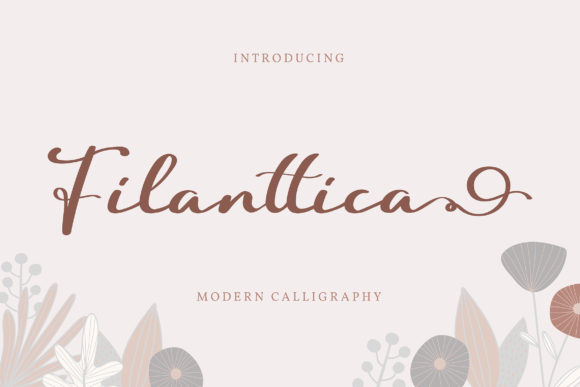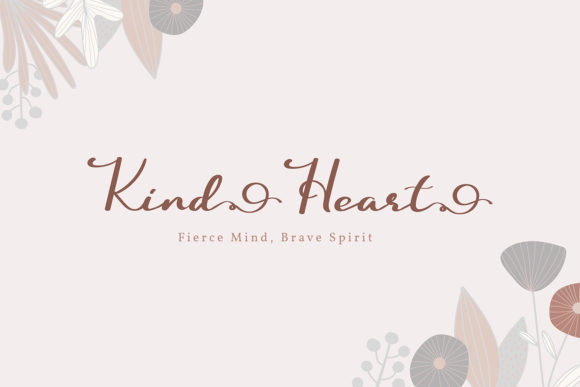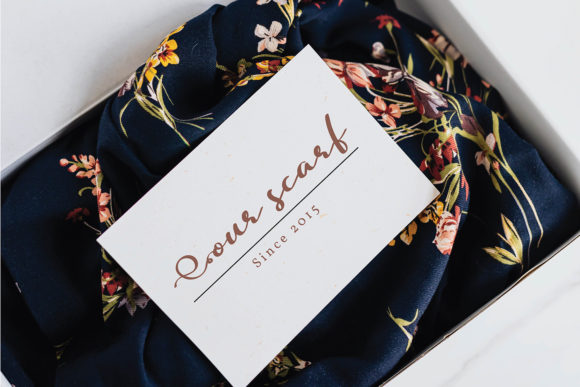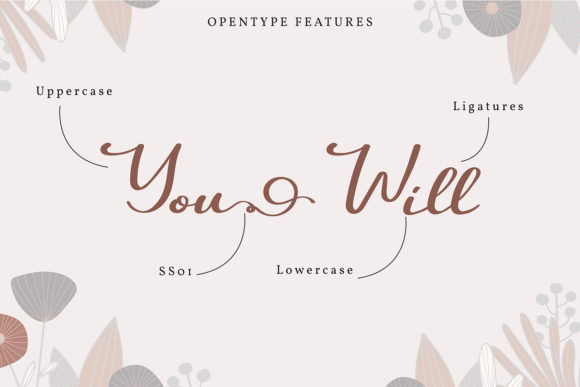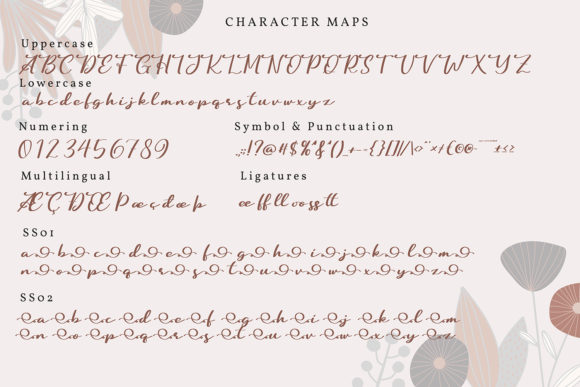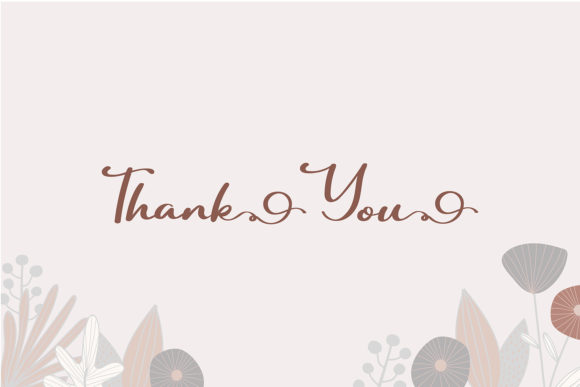
Filanttica Font
About Filanttica Font
Filanttica is a captivating cursive font that embodies elegance and sophistication. With its flowing and graceful letterforms, this font adds a touch of charm to any design project, making it particularly well-suited for wedding invitations, thank you cards, quotes, greeting cards, logos, business cards, and other designs that require a personalized touch.
The beauty of Filanttica lies in its delicate and well-crafted letterforms. Each stroke has been carefully designed to create a harmonious and visually pleasing flow. The cursive nature of the font adds a sense of fluidity and movement, giving your text a graceful and effortless appearance.
Filanttica is particularly well-suited for wedding-related designs. Its elegant and romantic style complements the aesthetics of wedding invitations, capturing the essence of love and celebration. The font adds a touch of sophistication and refinement to your wedding stationery, setting the tone for a memorable and elegant event.
Beyond weddings, Filanttica can be used in a wide range of design projects. Its versatility allows it to shine in various applications, such as quotes, greeting cards, logos, and business cards. The font brings a personalized and heartfelt touch to these designs, creating a connection with your audience and leaving a lasting impression.
One of the standout features of Filanttica is its PUA encoding. This means you can easily access all the glyphs and swashes that come with the font. PUA encoding ensures that you have a wide range of decorative elements and alternate characters at your disposal, allowing you to further customize and enhance your designs with ease.
The readability of Filanttica is also worth mentioning. Despite its elaborate and intricate letterforms, the font remains legible and clear, ensuring that your message is effectively communicated. This makes it a practical choice for both print and digital media, as your audience can easily engage with the text without any difficulty.
Embrace the cursive elegance of Filanttica and let its beautiful letterforms bring a touch of grace and sophistication to your designs. Whether it’s a wedding invitation, a heartfelt quote, or a stylish business card, this font will elevate your work and create a lasting impression on your audience.